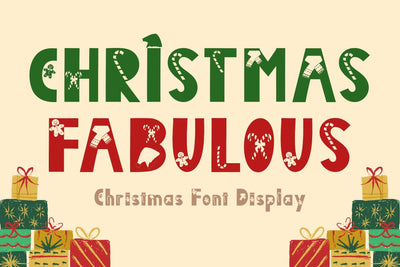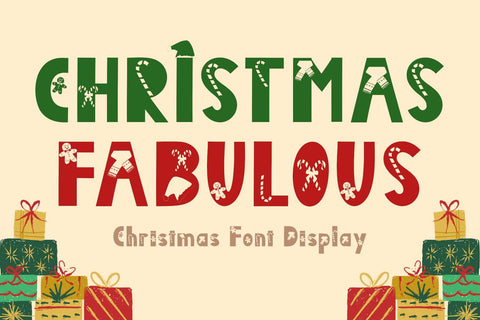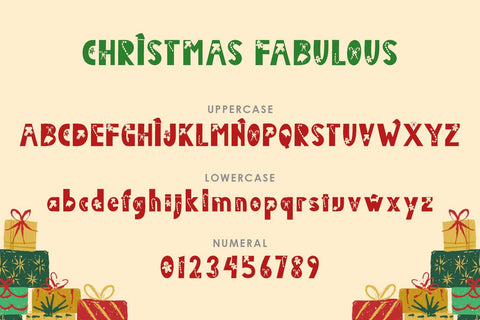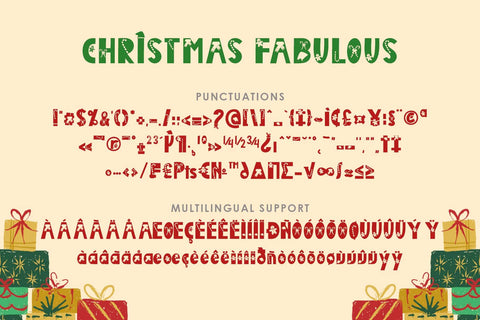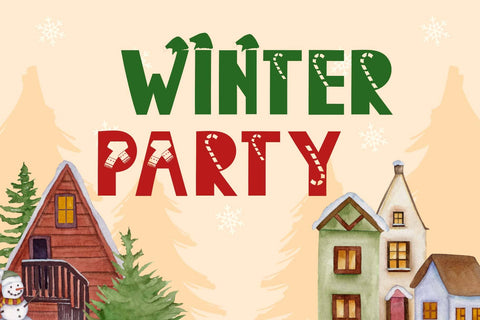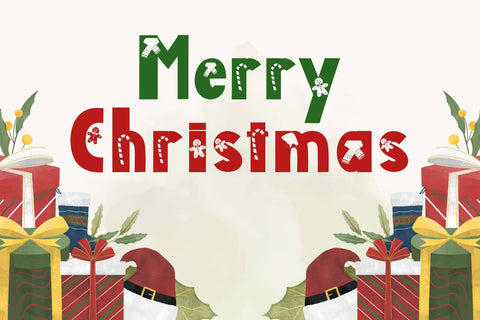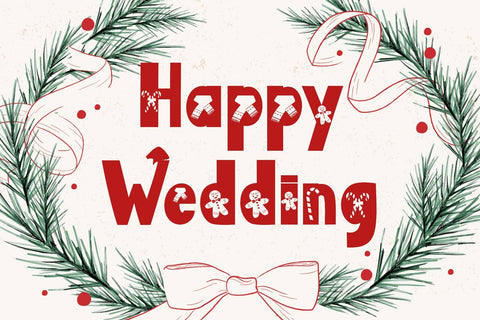
Christmas Fabulous
"Christmas Fabulous" is a unique and elegant display font. This font is equipped with uppercase, lowercase, numeral, punctuations and multilingual support. Very suitable for use for Christmas, Christmas greetings, Christmas invitations, posters, banners, birthdays, weddings, branding, stickers, logos and others.